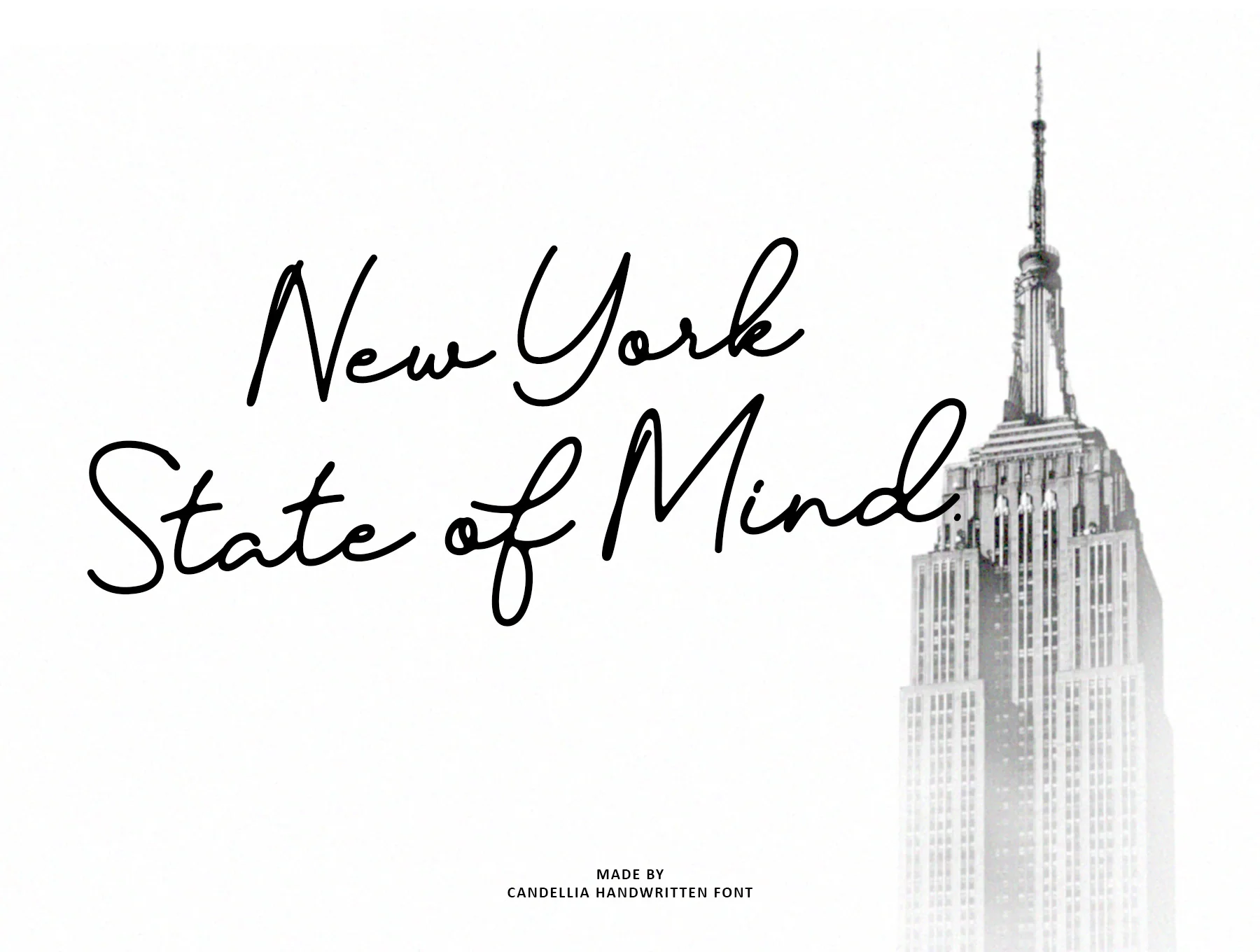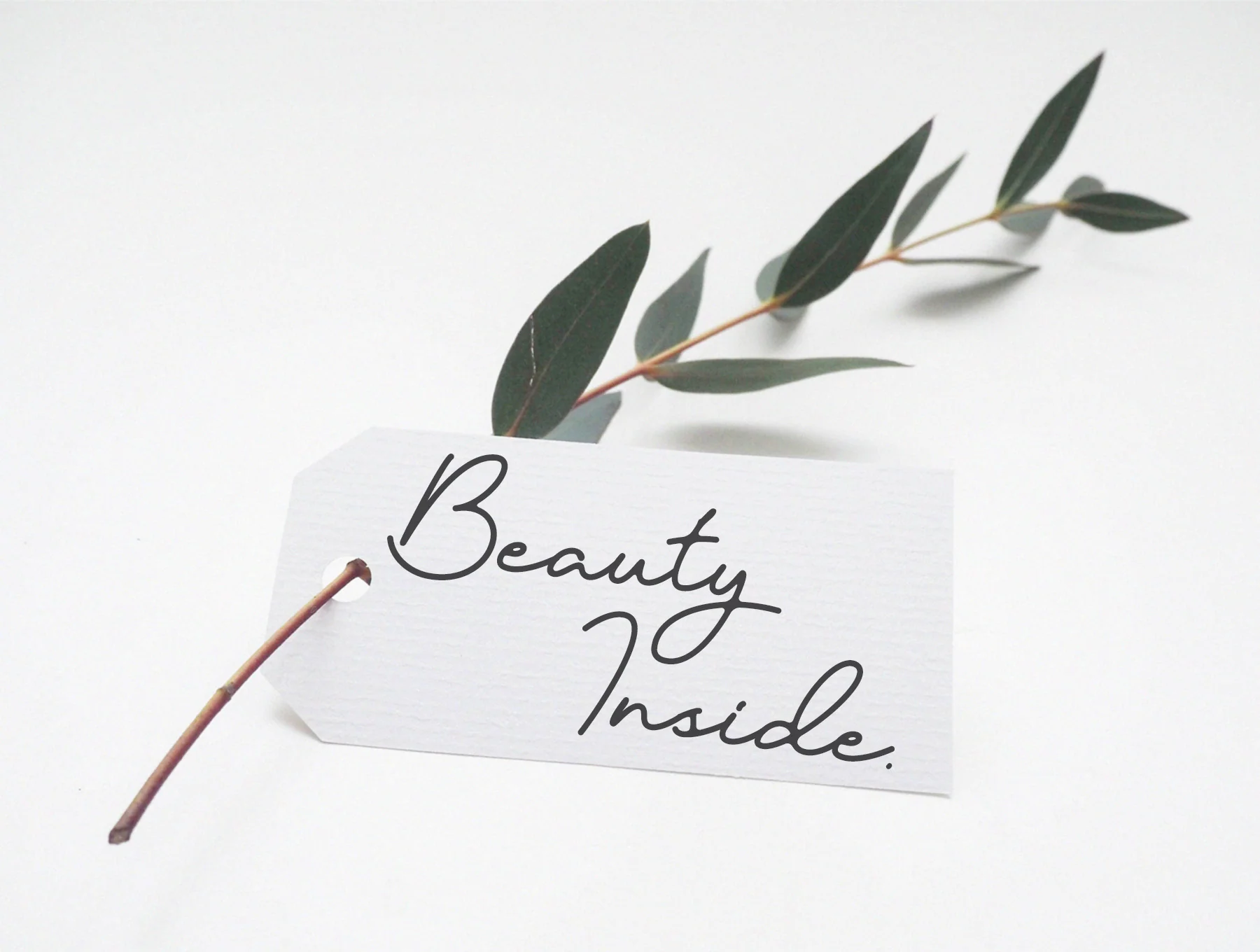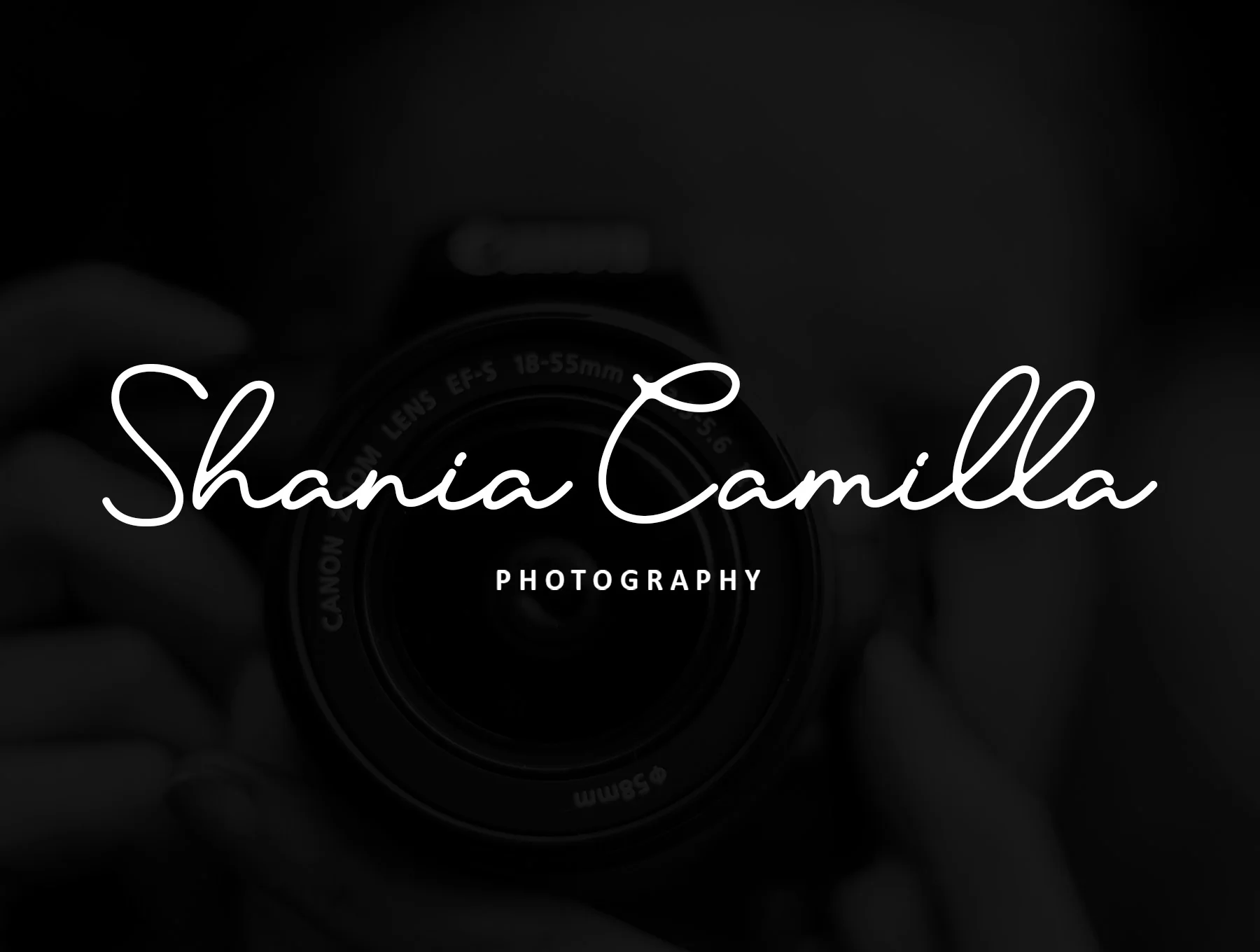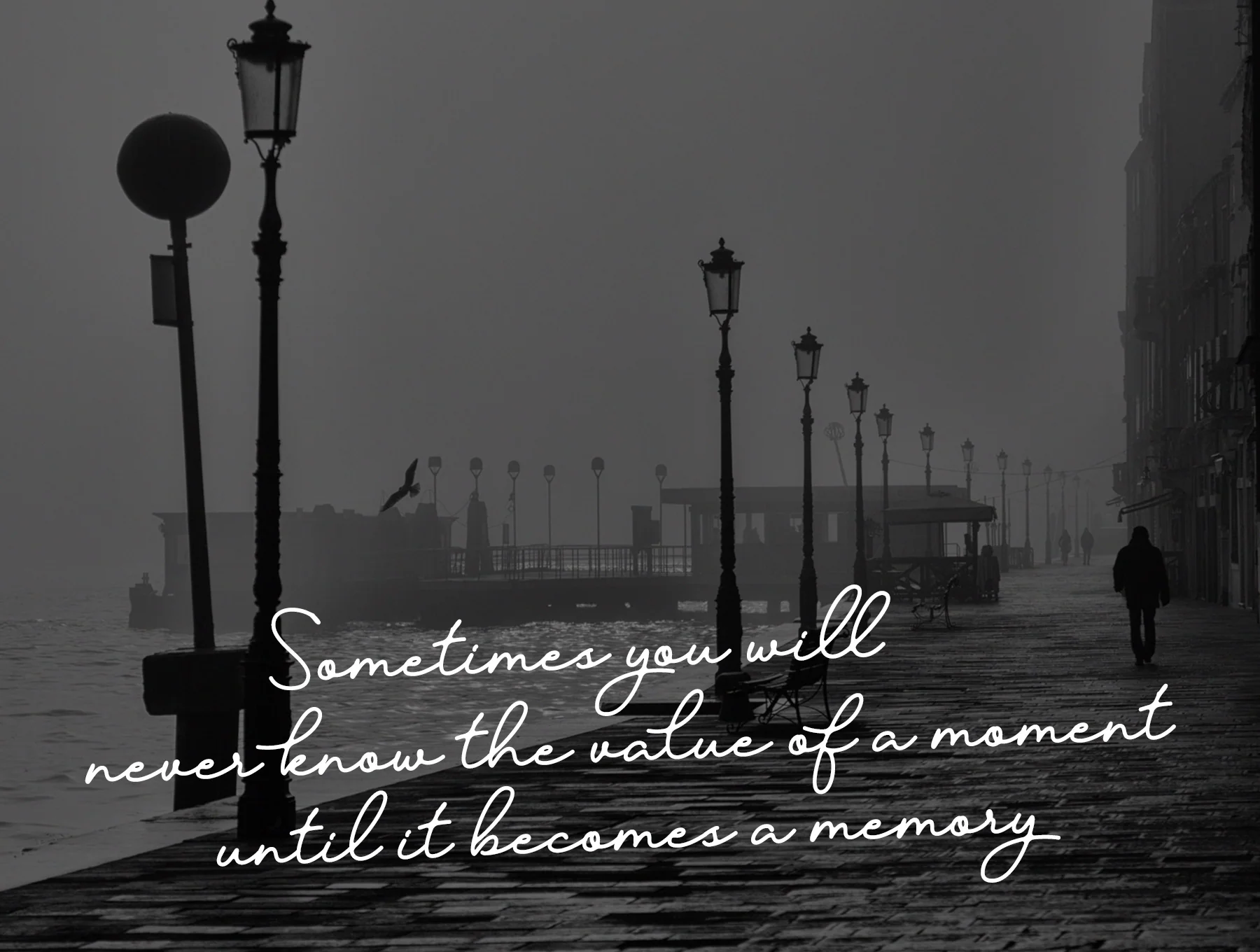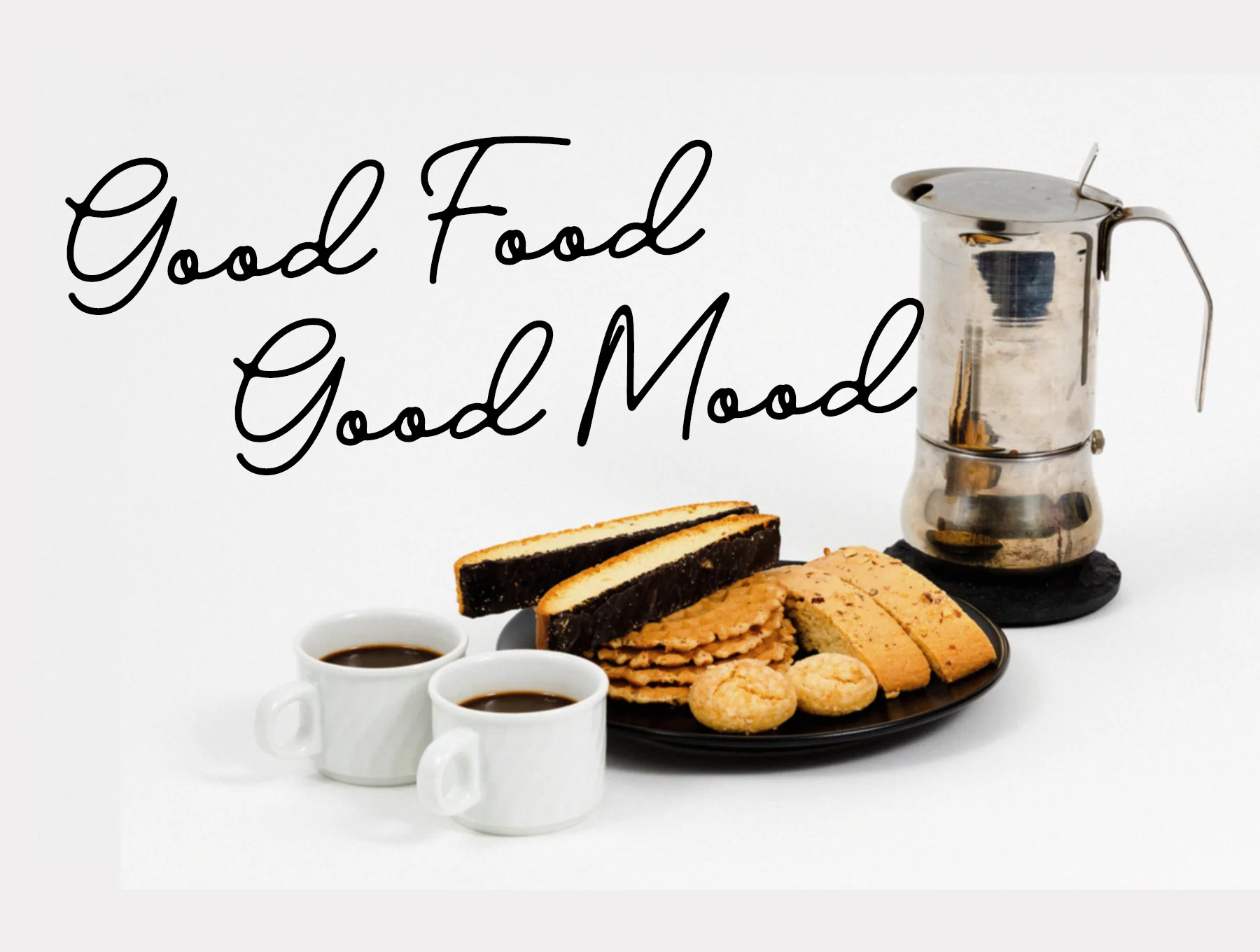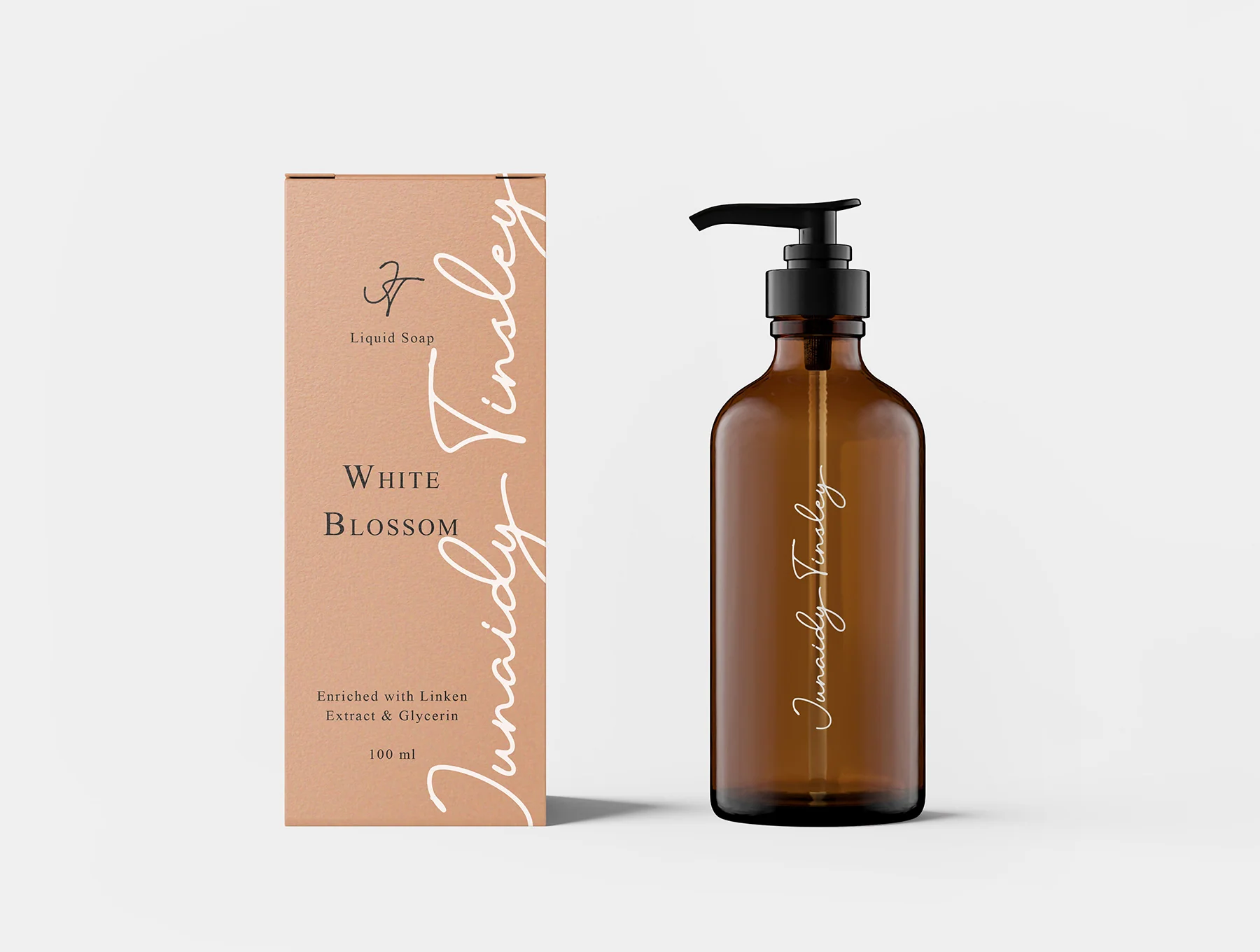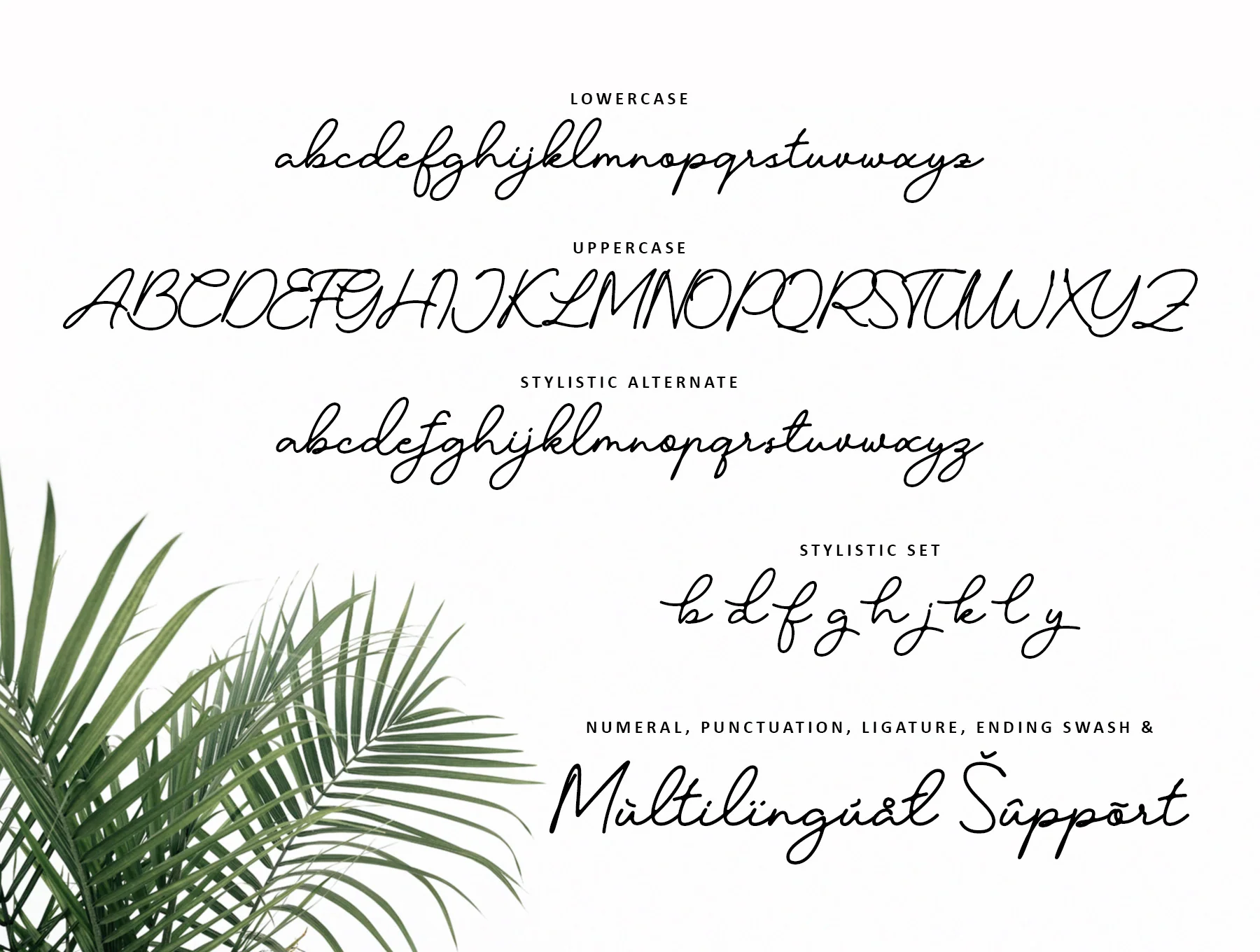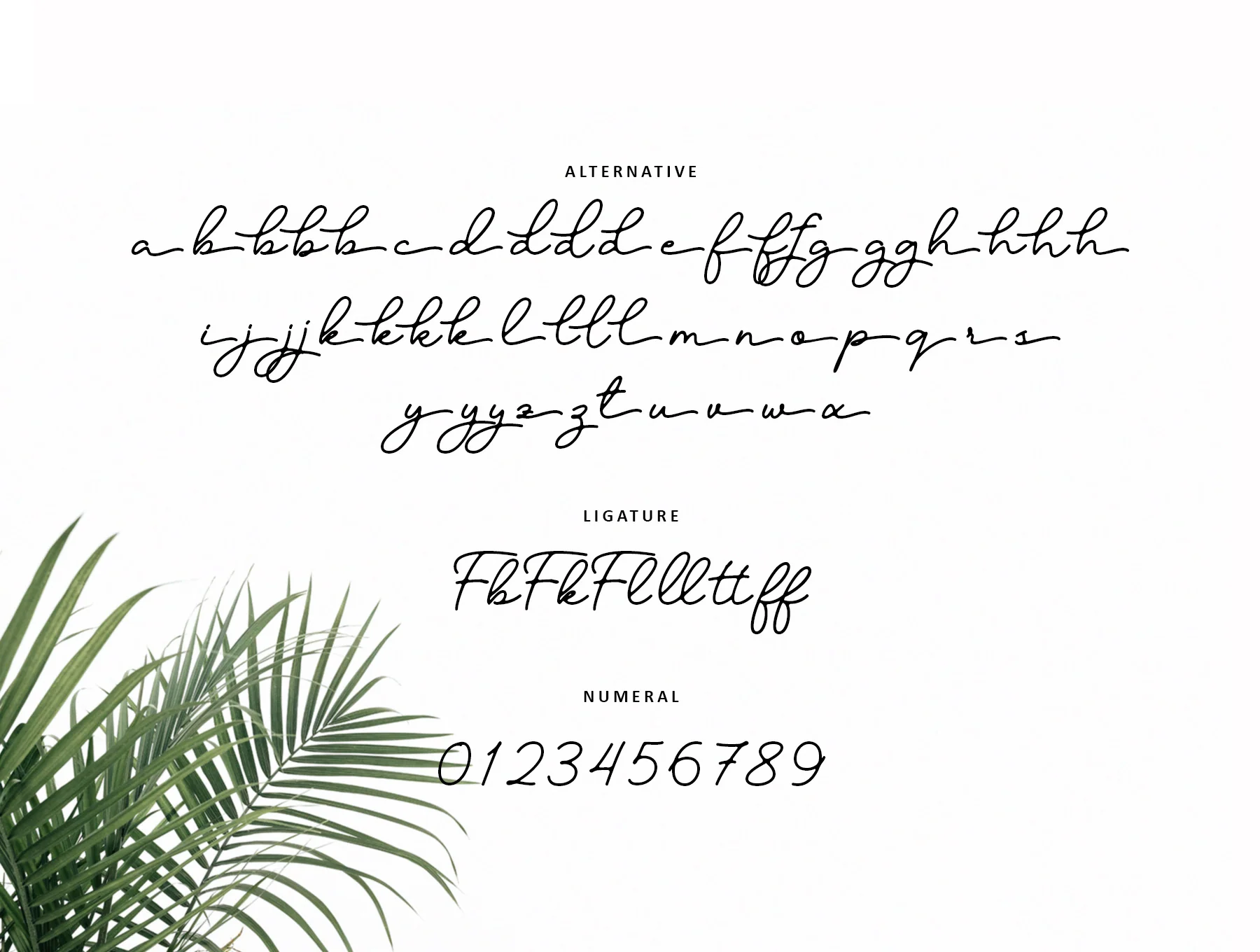
Candelia - Stylish Signature Font
Typeface with a relaxed, natural handwritten look
Capital letters, small letters, numbers, and punctuation
Support for multiple languages
Alternate styles and stylistic sets
Candelia Signature Font features relaxed, natural handwriting with an elegant fashion feel and city-inspired polish. Use it for logos, branding, blogs, websites, magazines, social posts, business identities, and luxury invitations. Its feminine, minimalist signature style suits photographers, bloggers, and brands. Includes Candelia. Alternates: Photoshop Window > Glyphs; Illustrator Type > Glyphs.